This font describes about modern life, stylist, modern, retro, vintage and easy to use. Mershella inspired by retro and vintage era.
FEATURES
– Uppercase and Lowercase letters
– Numbering and Punctuations
– Alternates letters
– Support Ligatures
– PUA Encoded Characters
– Multilingual Support
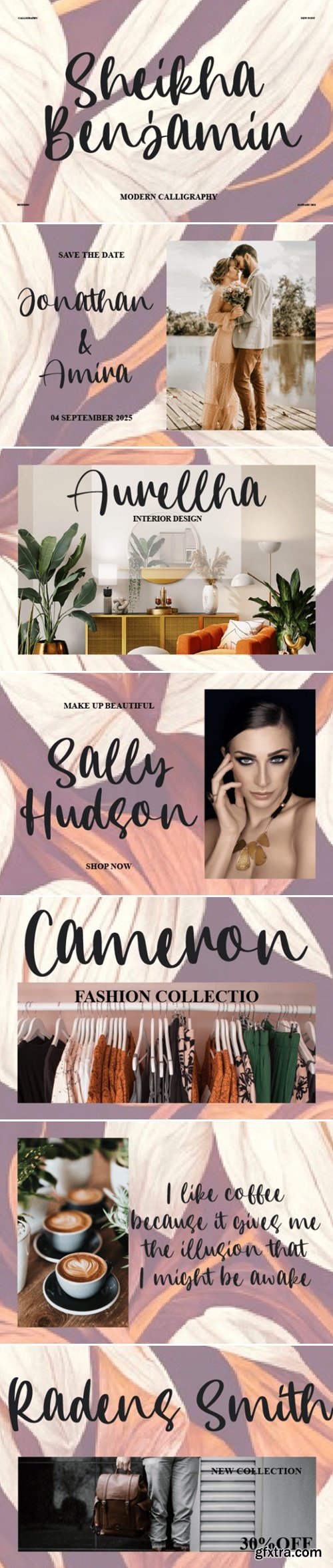
Sheikha Benjamin Font
Sheikha Benjamin is a lovely and timeless handwritten font. It is the best choice for creating eye-catching logos, branding, and quotes. Every letter has a unique and beautiful touch, which will make your design come alive!
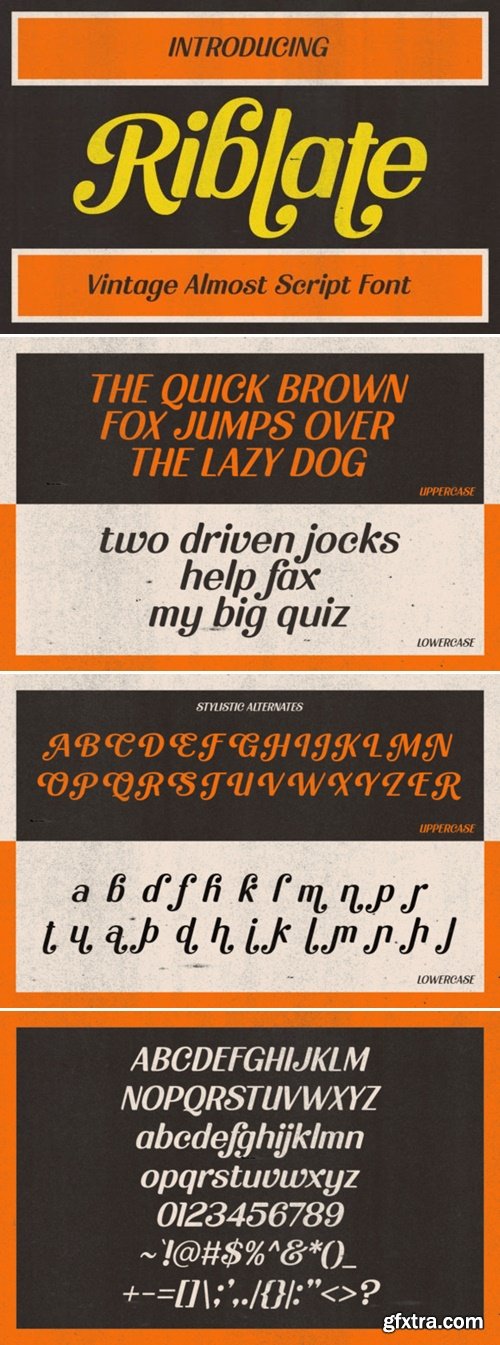
Riblate Font
Riblate is a vintage retro pop casual font. Unlike the formal and stiff vintage-based font, this one comes with a slight casual touch. Kinda pops a little bit, to unleash the youngster’s spirit in your visual presence.